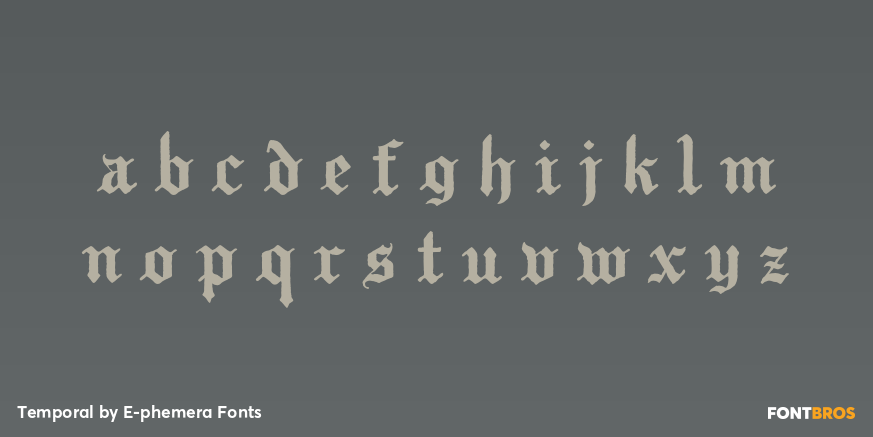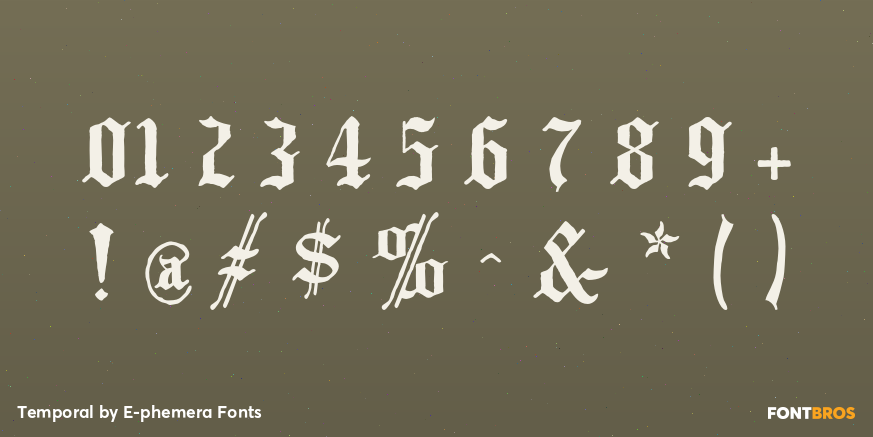
Temporal
Font Family by E-phemera Fonts
Buy NowTemporal is one in a series of fonts designed for use in creating replica vintage newspapers.
It is inspired by the nameplates of major metropolitan newspapers from the 1920s. Its rough character is apparent at headline sizes, and it remains nicely legible at small sizes. In addition to a complete international character set, it contains east and west coast variations for some letters, along with extra ligatures traditional for blackletter typesetting.